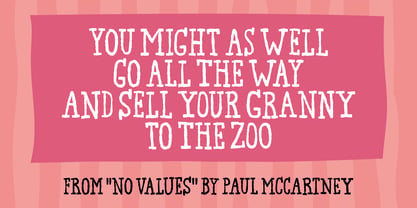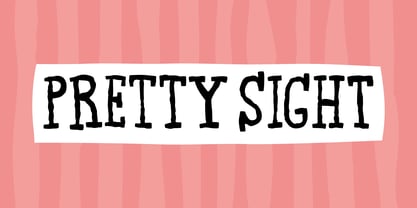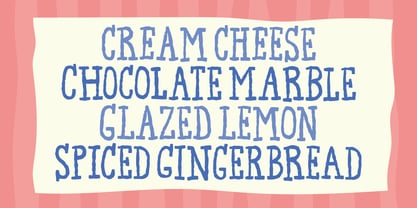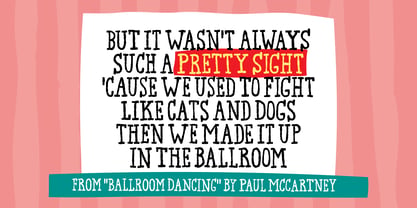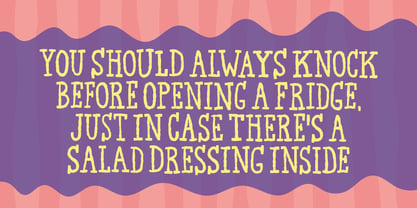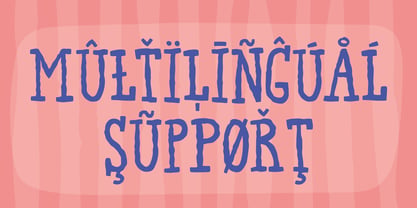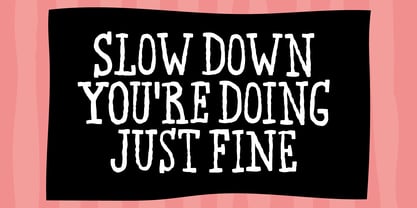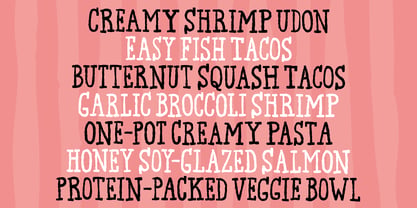
Pretty Sight
by PizzaDude.dk
The Pretty Sight Font Family was designed by Jakob Fischer and published by PizzaDude.dk. Pretty Sight contains 2 styles and family package options. More about this family
"Pretty Sight" is from a Paul McCartney song - and now it is also the name of a rough serif font, made by me. Maybe even Sir McCartney will use this font for something creative?! :)
Designers: Jakob Fischer
Foundry: PizzaDude.dk
Pretty Sight